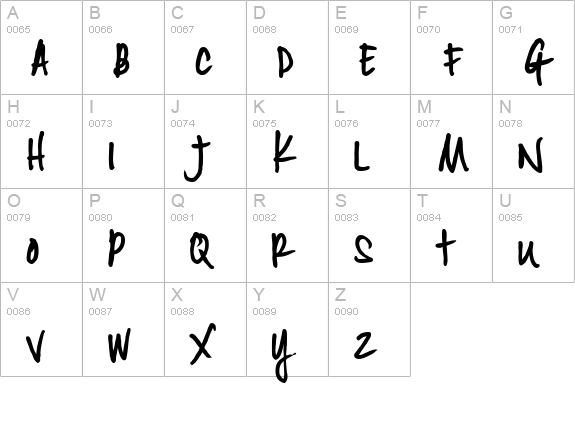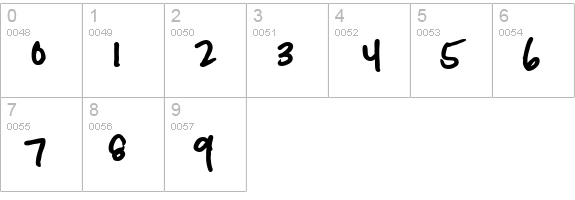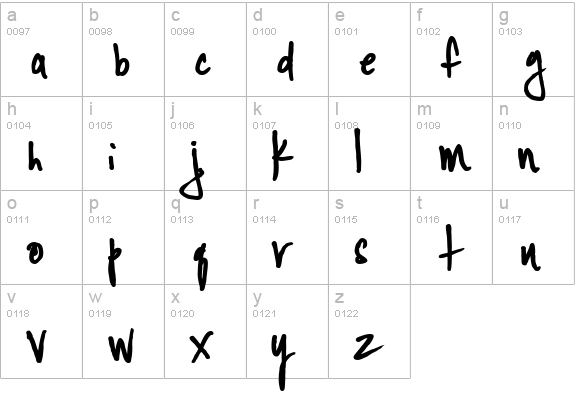
CinahandAlternate font is a charming and elegant typeface that exudes a sense of creativity and sophistication. With its unique handwritten style and alternate characters, this font is perfect for adding a personal touch to any design project. Whether you're creating invitations, branding materials, or social media graphics, CinahandAlternate font will surely make your text stand out. The best part? CinahandAlternate font is completely free to download at FontsMarket.com. You can easily access this beautiful font and enhance your designs without any cost. Don't miss out on the opportunity to elevate your creations with the captivating CinahandAlternate font. Download it today and let your creativity soar!